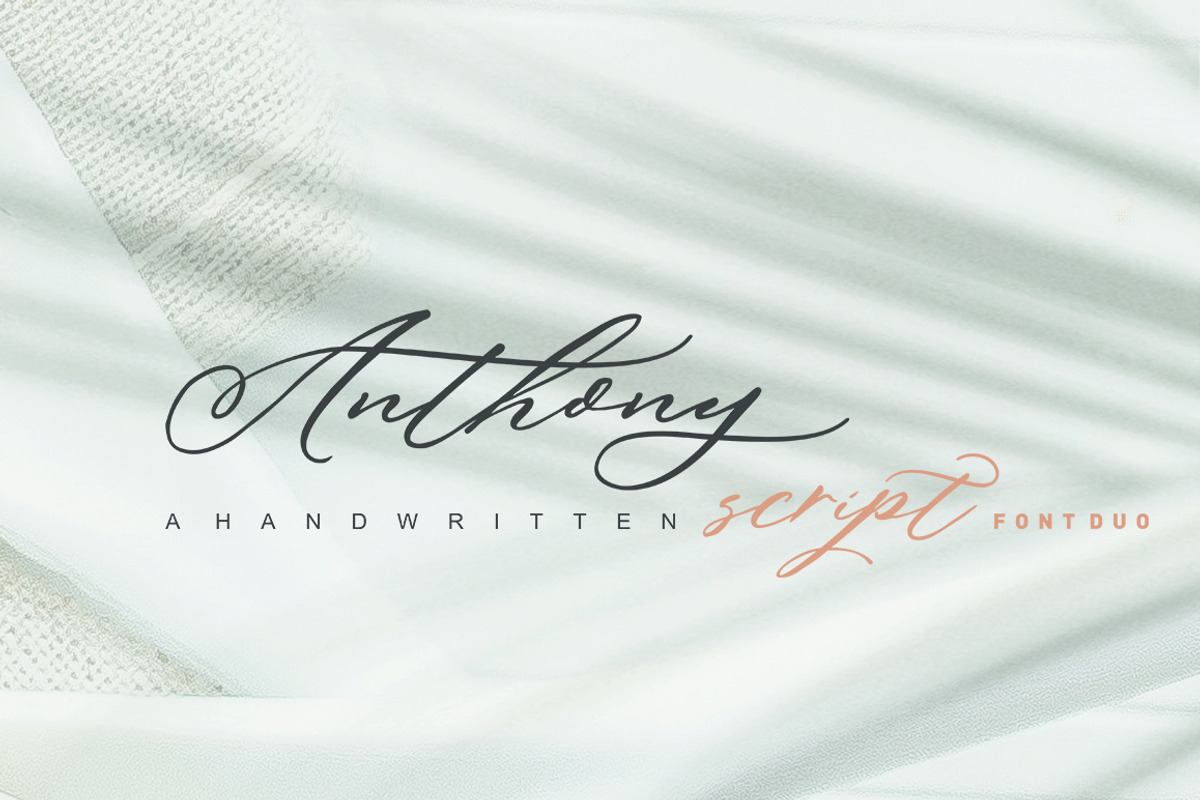
Anthony Script Font Duo Free Download
Anthony Script Font Duo Free Download offers a stunning combination of elegance and readability. This font duo features a beautiful script font paired with a clean, modern sans-serif. Perfect for wedding invitations, branding projects, or any creative work that demands a personal touch, Anthony Script Font Duo stands out with its smooth curves and timeless design. The fonts complement each other perfectly, giving your projects a sophisticated yet friendly vibe.